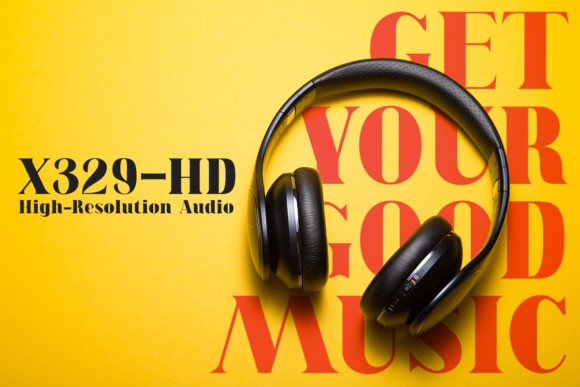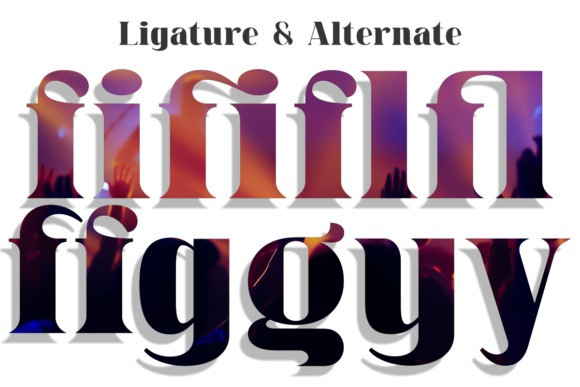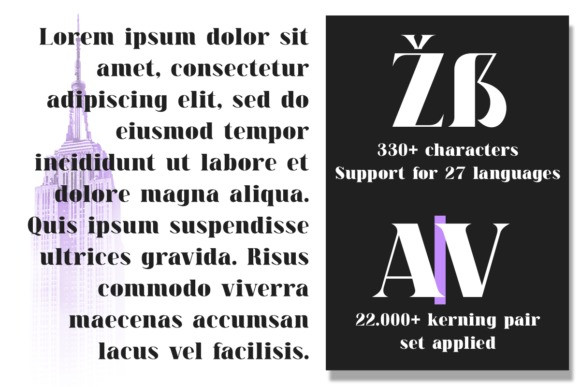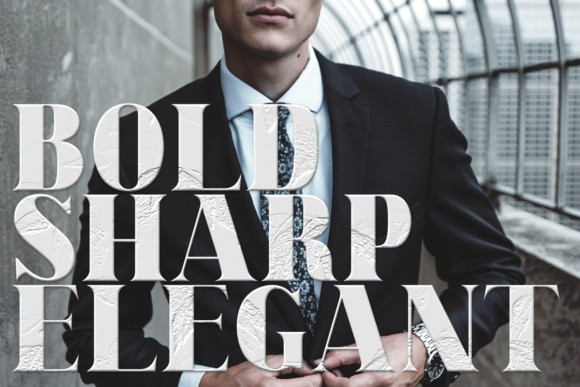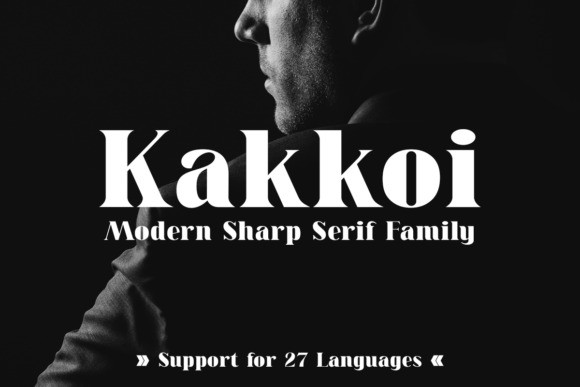
Kakkoi Serif Font is a modern serif font. This versatile display typeface has enough character for logos and branding, as well as headlines, apparel, bridal and more. Keep it classic, or get decorative with ornate alternates for both uppercase and lowercase glyphs! It is design and shared by Sign Studios. It’s a bold and modern serif font, carefully handcrafted to become a true favorite. This font will look outstanding in any context, whether it’s being used on busy backgrounds or as a standalone headline!